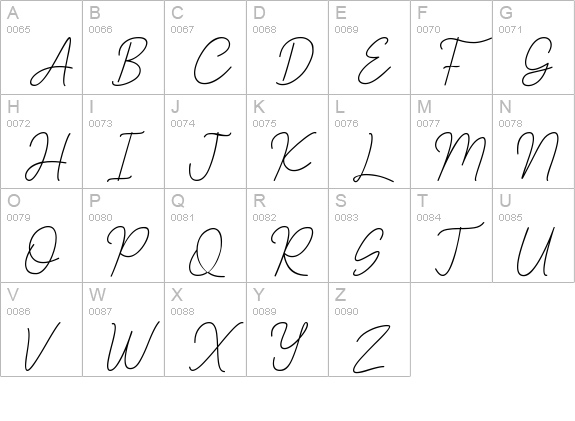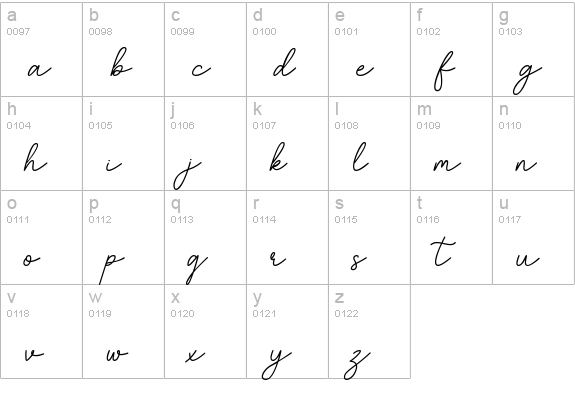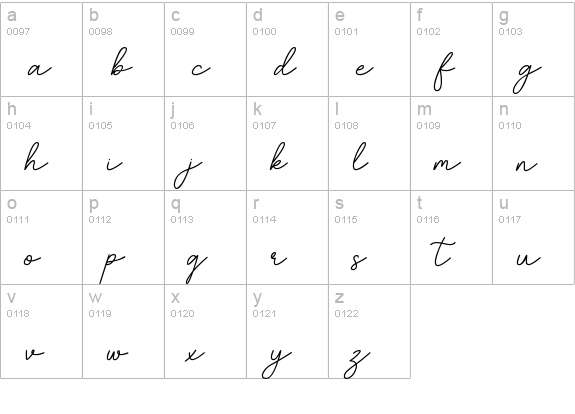
Angellita Font Details
Angellita is a free for personal use font in the Script > Handwritten category, designed by bluestype_studio. It has been downloaded 202 times and is available for Windows, Mac and Linux.
Angellita font is a beautifully crafted typeface that exudes elegance and sophistication. With its delicate curves and stylish appearance, Angellita font is perfect for adding a touch of charm to your design projects. This versatile font is ideal for creating eye-catching logos, invitations, branding materials, and more.